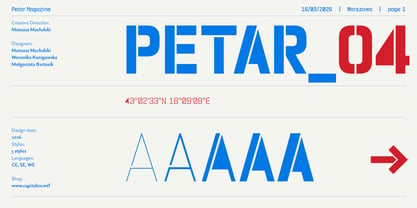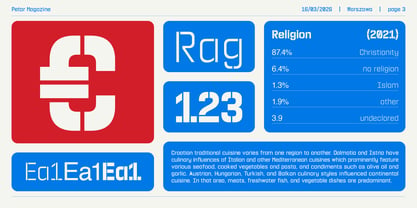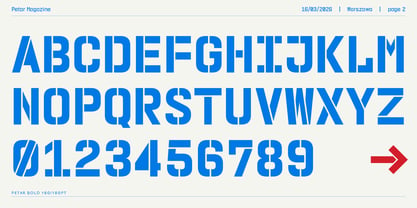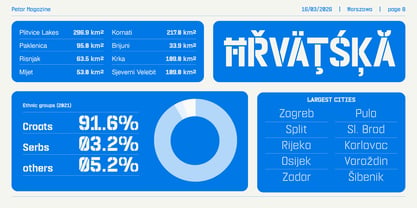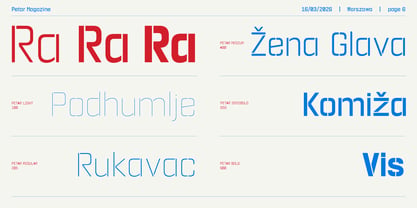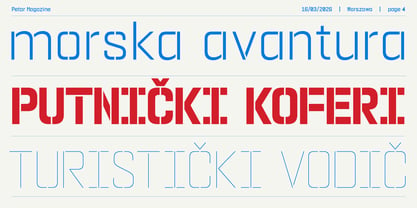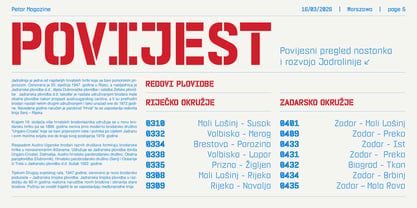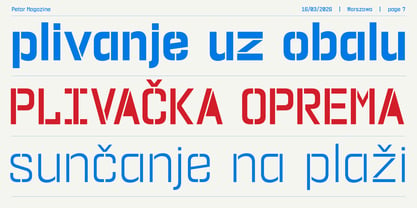
Petar04
by Machalski
The Petar04 Font Family was designed by Mateusz Machalski and published by Machalski. Petar04 contains 5 styles and family package options. More about this family
PETAR_04 is inspired by the lettering I revisit every year on the Petar Hektorović ferry operated by Jadrolinija. The typography used in wayfinding is simple, technical, and entirely driven by function and ease of reproduction with stencils. These are letters made without aesthetic ambition, yet carrying a very distinct character. This starting point was remixed through the lens of the island of Vis, a place marked by its military past, where typography served as a tool: fast, sharp, direct, often even “brutal” in its form. In this project, I kept that raw, uncompromising quality, translating it into a contemporary language. The typeface can be described as monospace, built on a grid and shaped by pronounced stencil cuts that define its rhythm and functional tone. Design team: Mateusz Machalski, supported by: Weronika Kanigowska & Małgorzata Bartosik.
Designers: Mateusz Machalski
Foundry: Machalski
Dr hab. Mateusz Machalski, Associate Professor (b. 1989) – Vice-Rector for Artistic Affairs at the Academy of Fine Arts in Warsaw. Designer, typographer, lecturer and researcher specializing in visual communication and graphic design. He graduated with Rector’s Honours from the Faculty of Graphic Arts at the Academy of Fine Arts in Warsaw (2009–2014), where he currently teaches at the Multimedia Artistic Creation Studio. Named Designer of the Year 2019 at the Polish Graphic Awards, he has been repeatedly awarded in national and international competitions, including KTR, Ascender 2018 – Type Directors Club New York, MUSTHAVE, The DieLine, Red Dot Design, The Best of Design 2018 – Klub Twórców Reklamy, and Animator 2020 – DESIGN ALIVE. He is a five-time recipient of the Polish Ministry of Culture’s scholarship, a laureate of the Ministry of Science and Higher Education’s scholarship for outstanding young researchers, and of the “Young Poland” programme by the National Centre for Culture. He was awarded the Centennial of Regained Independence Medal by the President of Poland. He is a curator and member of the programme board of the International Poster Biennale in Warsaw, and Art Director of the magazines newonce paper and Warsawholic. He has created more than 80 typeface families – including numerous corporate and multi-script designs – and over 200 visual identities for companies, institutions and cultural events. His fonts are distributed through platforms such as Google Fonts, Adobe and Monotype, and his clients include leading Polish and global brands. He has led teams digitizing key works of Polish typography, including “Półtawski Nowy”, “BRYGADA 1918” (launched at the Presidential Palace), and carried out the long-term “Bona Nova” project together with Andrzej Heidrich – the designer of Polish banknotes. He co-created Typoteka – the first Polish index of typography (1474–2024). Co-founder of the first Polish type foundry – Capitalics. He is also the author of numerous texts, articles and exhibitions on graphic design and visual culture, as well as the “Creative Typography” course published by Design Practice. He conducts research projects, workshops and lectures at universities and conferences in Poland and abroad.